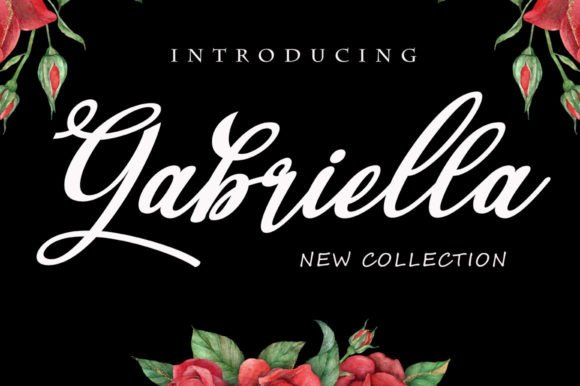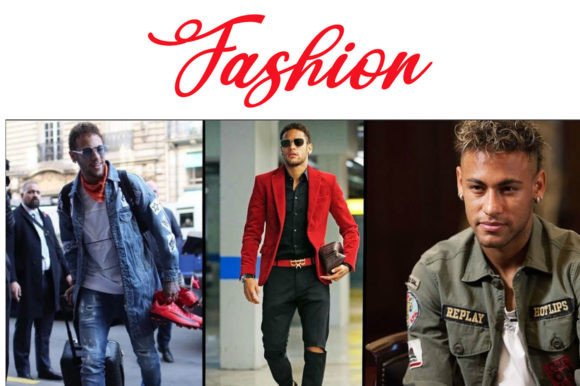
About Gabriella Font
“Gabriella” is a stylish handwritten script font that exudes class, elegance, and modernity. With its chic aesthetic, this font is well-suited for a variety of design applications, including logos, branding, invitations, stationery, wedding designs, social media posts, and more. Incorporating “Gabriella” into your creative projects adds a touch of sophistication and allure, captivating your audience with its style and form.
The script style of “Gabriella” imparts a sense of fluidity and grace to your text, making it suitable for projects where a classy and elegant look is desired. Whether you’re crafting a logo for a high-end brand or designing wedding invitations, this font brings a level of refinement to your designs.
The versatility of “Gabriella” allows it to adapt to different themes and contexts, making it a valuable asset for designers seeking a stylish and modern script font. Its timeless appeal and clean lines contribute to its effectiveness in creating visually appealing and memorable designs.
In summary, “Gabriella” is a stylish handwritten script font that adds a touch of class and elegance to your creative projects. Its modern look makes it a versatile choice for a range of design applications, allowing you to create sophisticated and captivating visuals that leave a lasting impression.